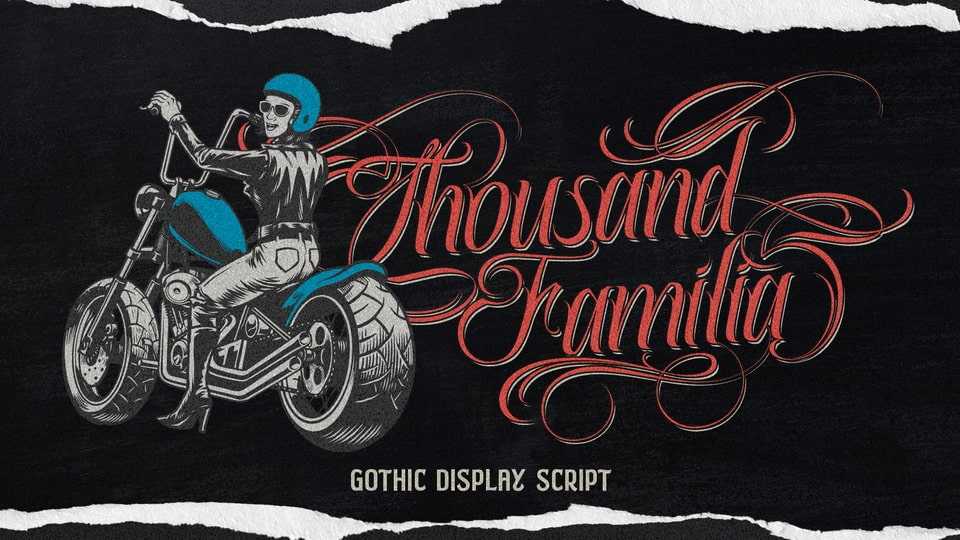
Download Thousand Familia font, a script typeface that masterfully blends the fierce spirit of Mexican gangster tattoo artistry with contemporary elegance.